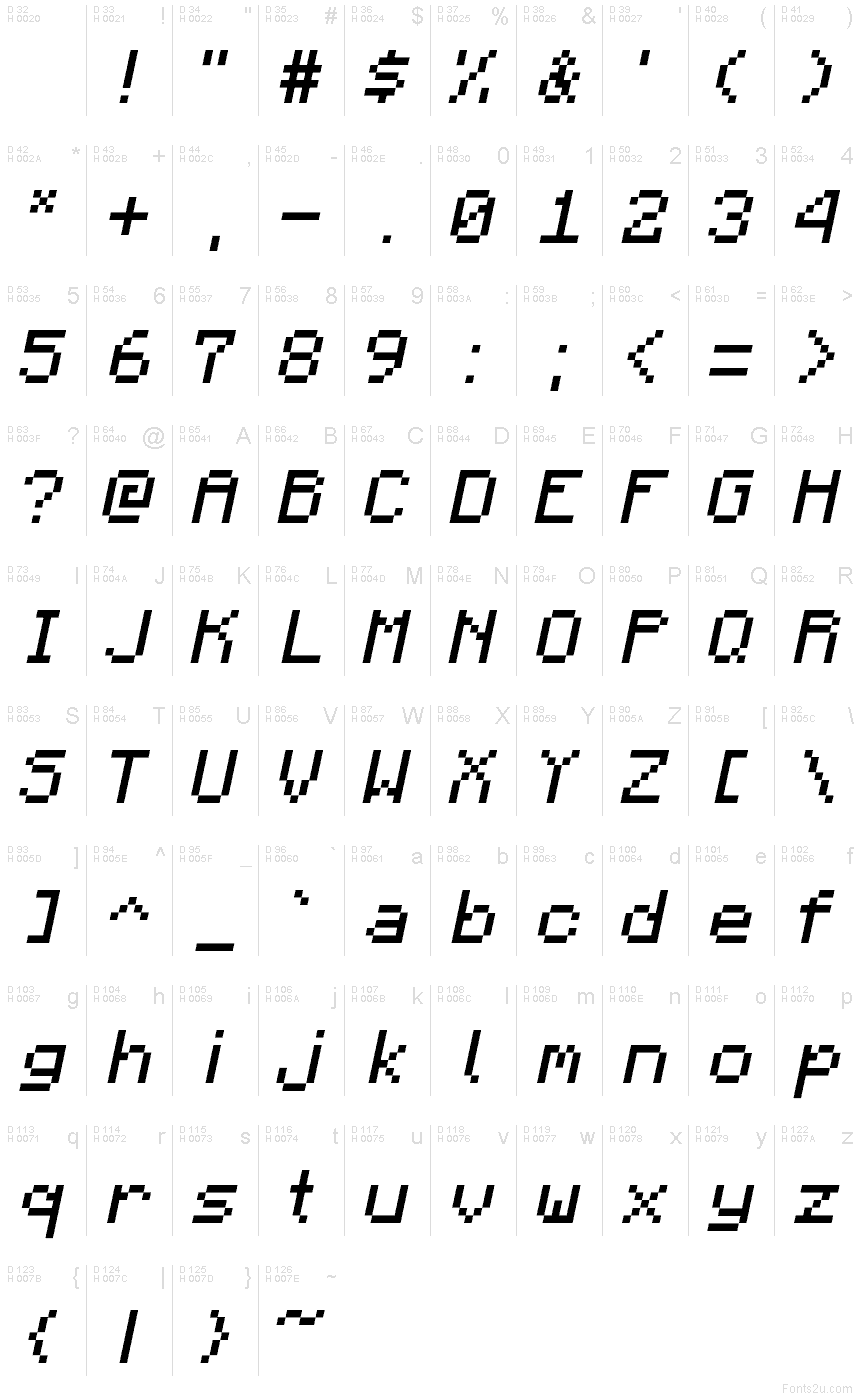
mac's Extended Minecraft Italic
mac's Minecraft Italic Extended font is a pixelated bitmap typeface designed by Macimas. This digital aesthetic font features a geometric, nostalgic look reminiscent of early video game typography from the 1980s. Its retro style captures the essence of vintage technology, bringing an engaging and authentic feel to any creative project.
❤️ Main - Minecraft font with bold and italic styles
?️ Tweaked - An enhanced version of the main package, aimed at making certain bold characters more readable
✨ Extended - A little experiment that adds more characters to the main package for fun